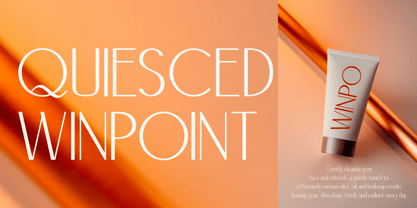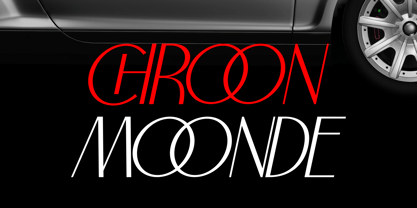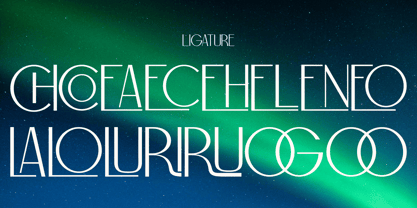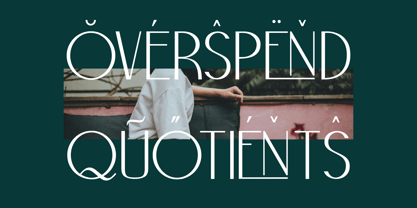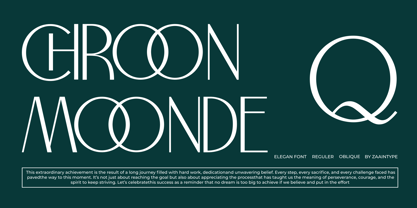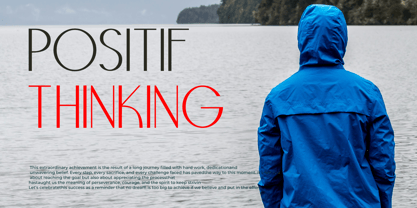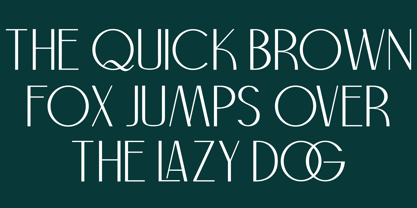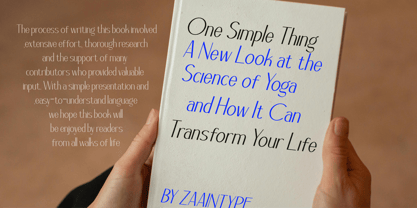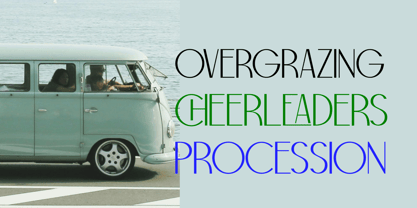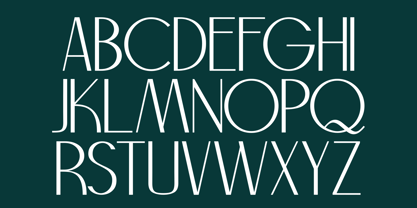
Chroon Moonde
The Chroon Moonde Font Family was designed by Ju Naen and published by Zaain Type. Chroon Moonde contains 2 styles and family package options. More about this family
Chroon Moonde is a modern sans-serif font available in two main styles: Regular and Oblique. Designed with stunning simplicity, this font offers versatility for various design needs, from premium branding to dynamic digital media